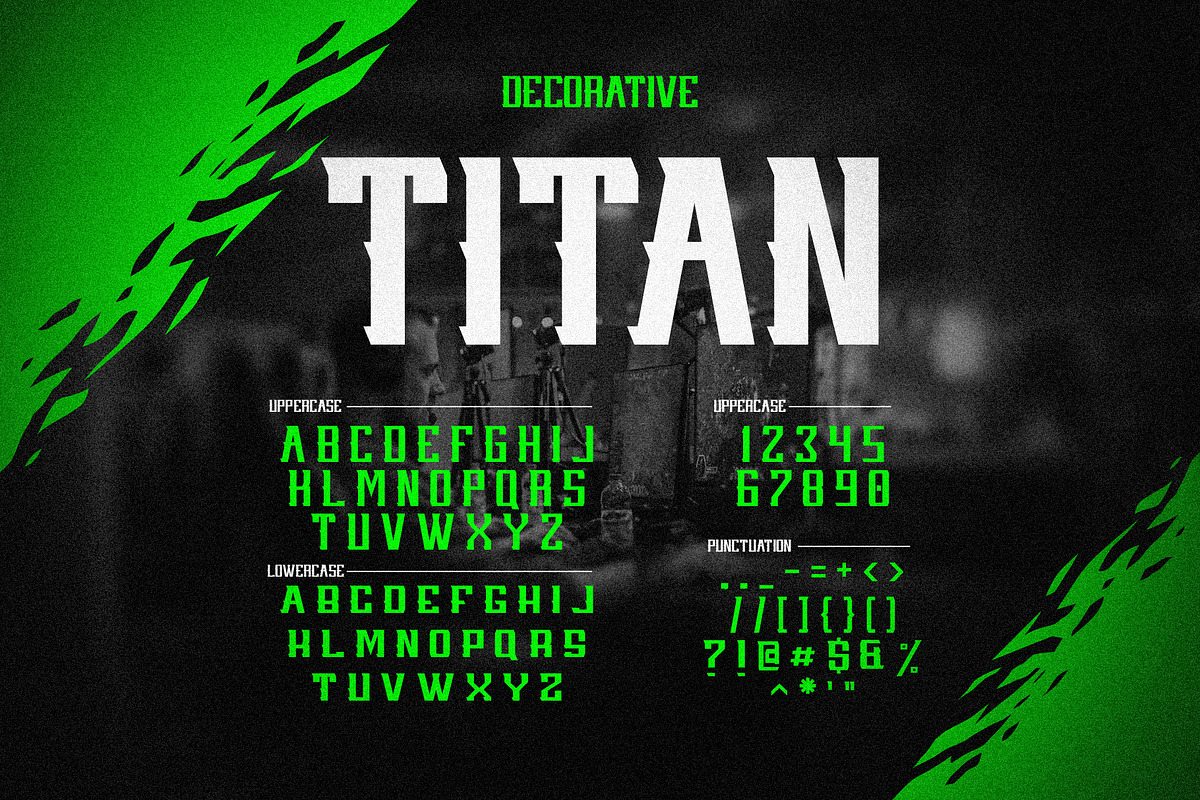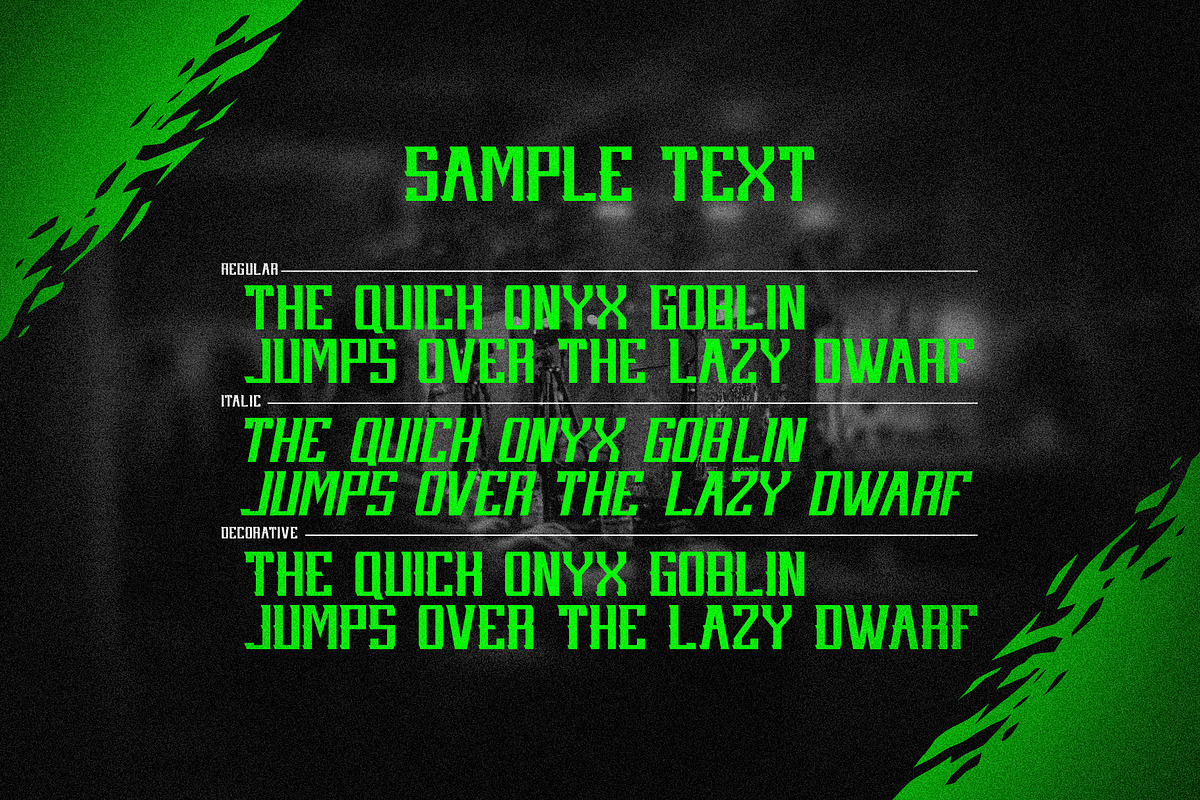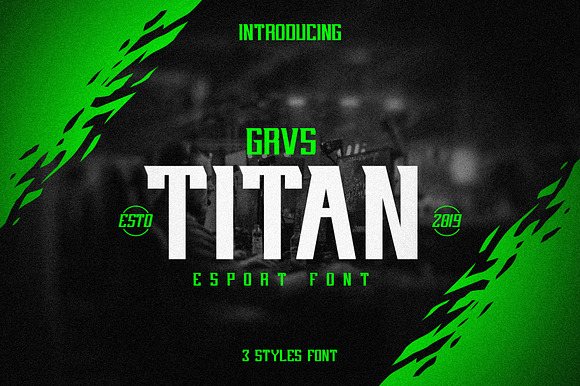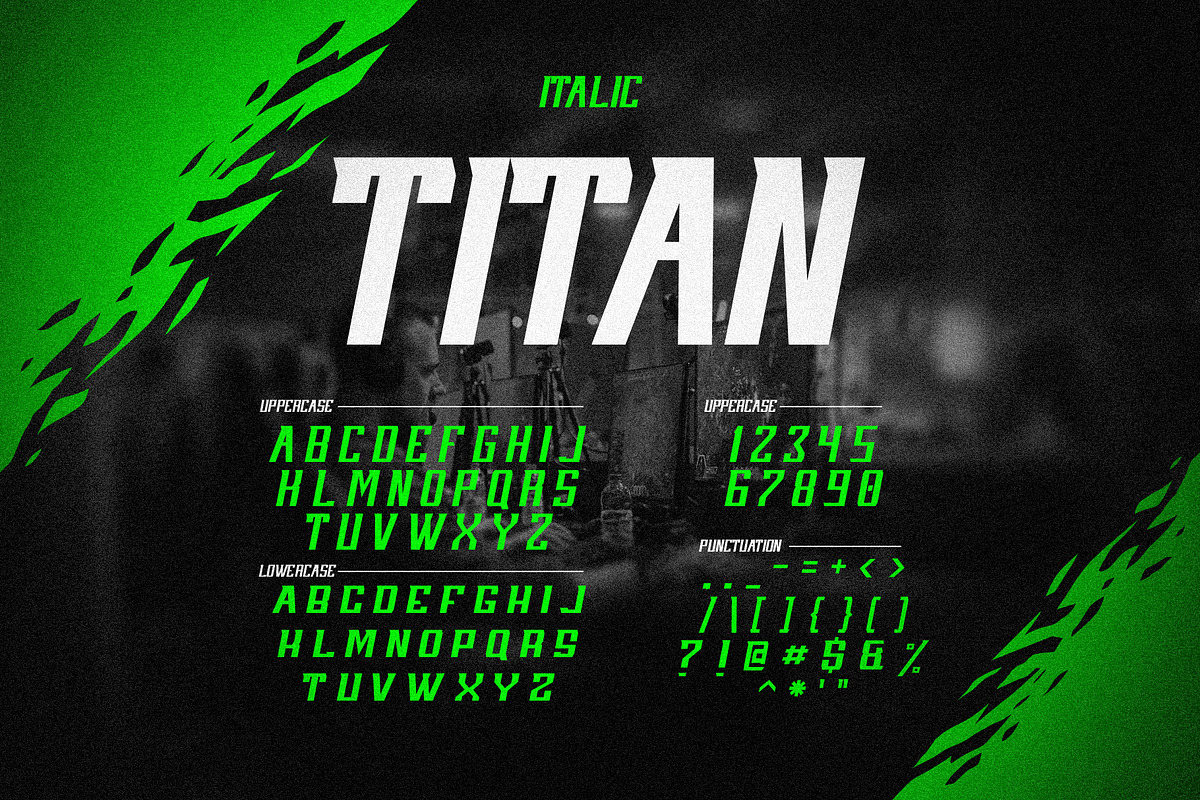
GRVS Titan Font
Introducing!, Titan Font and Mascot Logo Template
Why GRVS Titan Font is worth a look
GRVS Titan Font by GRVS Studio fits naturally into Branding, posters, packaging, typography.